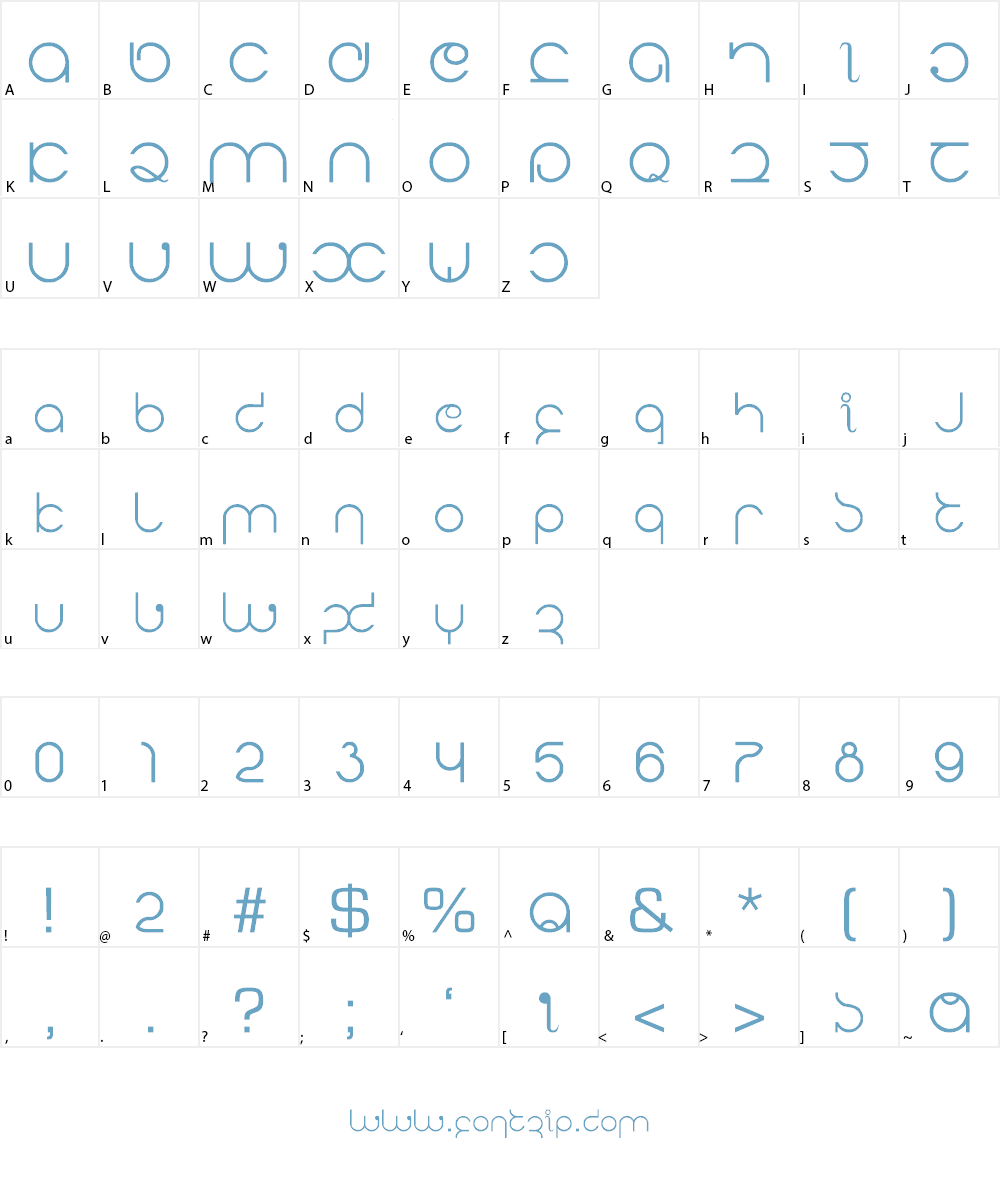
The Lupanesque Script was invented as an alternative alphabet for Romanian, English and other languages. I was inspired to create this script after seeing the Georgian and Burmese alphabets.
In lower case all consonants are bigger than vowels.